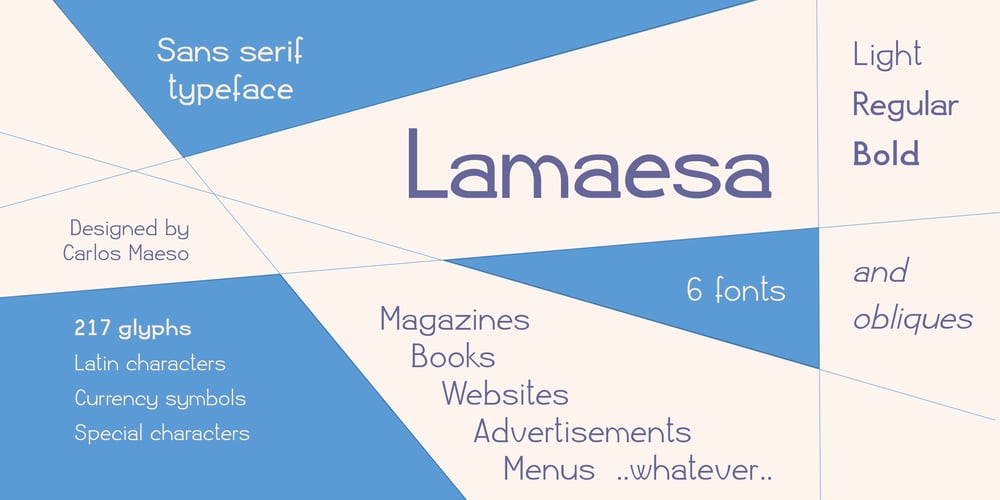
Lamaesa
Lamaesa font
Lamaesa Font Family was designed by Carlos Maeso González and published by Carlos Maeso González. Lamaesa contains 6 styles and family package options. Lamaesa is a versatile and original design sans serif typeface.Designed to be used primarily on medium and large point sizes.Designed so you do not get tired of reading it, but at the same time, so that you notice its particularity.Oriented for use in headlines and continuous text, with a solid appearance, but with a slight aroma of handwriting, which gives it an ambivalent and original character.It is perfect for magazines, company letters, websites, advertisements, restaurant menus, and any support and function where it is essential to attract attention in an elegant and non-abusive way.Basic Latin characters. It consists of 217 glyphs (ISO 8859-15): uppercase, lowercase, numbers, currency symbols, and special characters.It consists of six fonts: light, normal and bold as well as their oblique equivalents.Carlos Maeso González is the designer of the typeface “Lamaesa”.